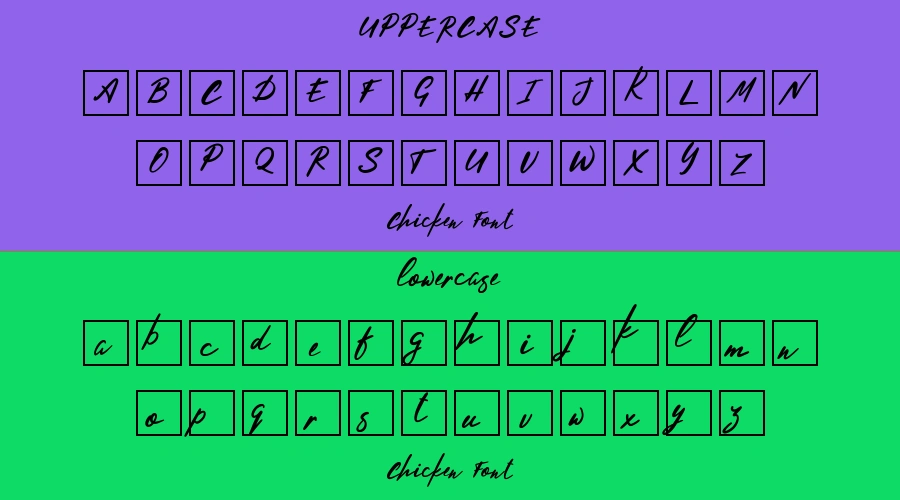
About Chicken Font
Chicken Font stands out for its distinctive combination of brush influence and precision. Ideal for architectural plans, it provides the personality and cultural relevance that professional projects demand. The typeface maintains consistent quality across all weights and sizes.
Key features include refined bold expressions and practical oldstyle figures, enhancing typographic expression. In running text applications, Chicken Font demonstrates exceptional small text clarity. The stem weight and cultural resonance contribute to its distinctive character and professional appeal.